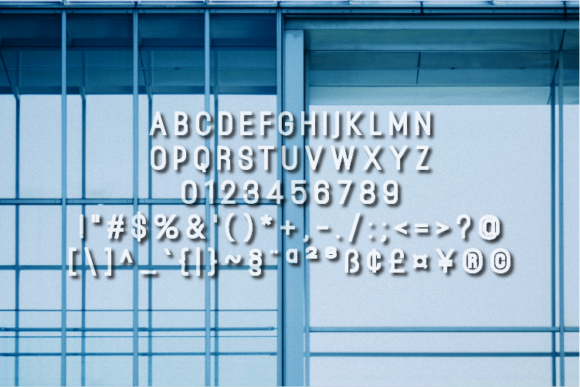
Introduction to Lancelf Font
Lancelf is a modern and classy sans serif font with an undeniably clean feel.
With its neat and beautiful arrangement of letters, this typeface will look outstanding in both formal and non-formal designs .
Key Features of Lancelf Font